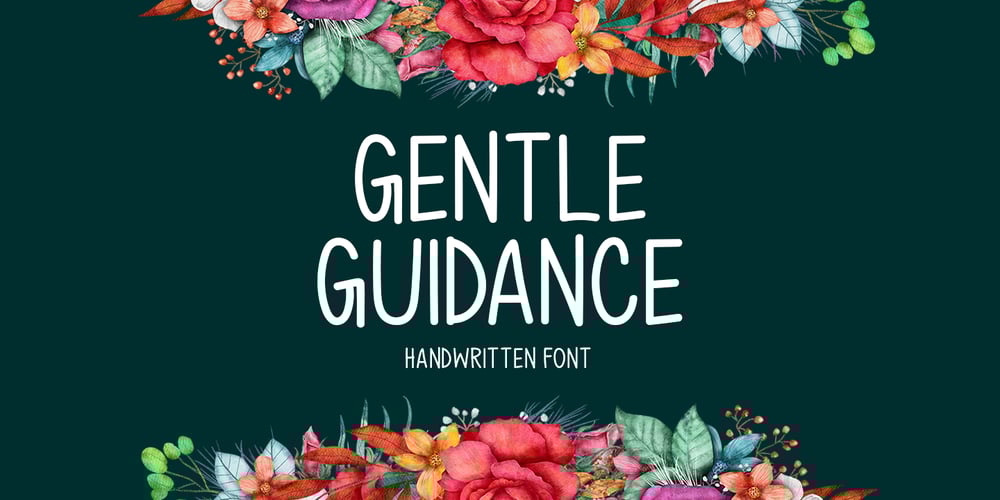
Gentle Guidance
Gentle Guidance font
Gentle Guidance Font Family was designed by Md Shohail Bhuian and published by Seemly Fonts. Gentle Guidance contains 1 styles and family package options. Introducing Gentle Guidance, a mesmerizing handwritten font that radiates charm and sophistication. Perfect for various applications, including apparel, advertisements, and stationery, its versatility brings a touch of elegance to any project. When crafting logos, marketing materials, or home decor, Gentle Guidance’s graceful strokes evoke a timeless appeal, adding a sophisticated flair to your creations. Unleash your creativity with this enduring, adaptable font.